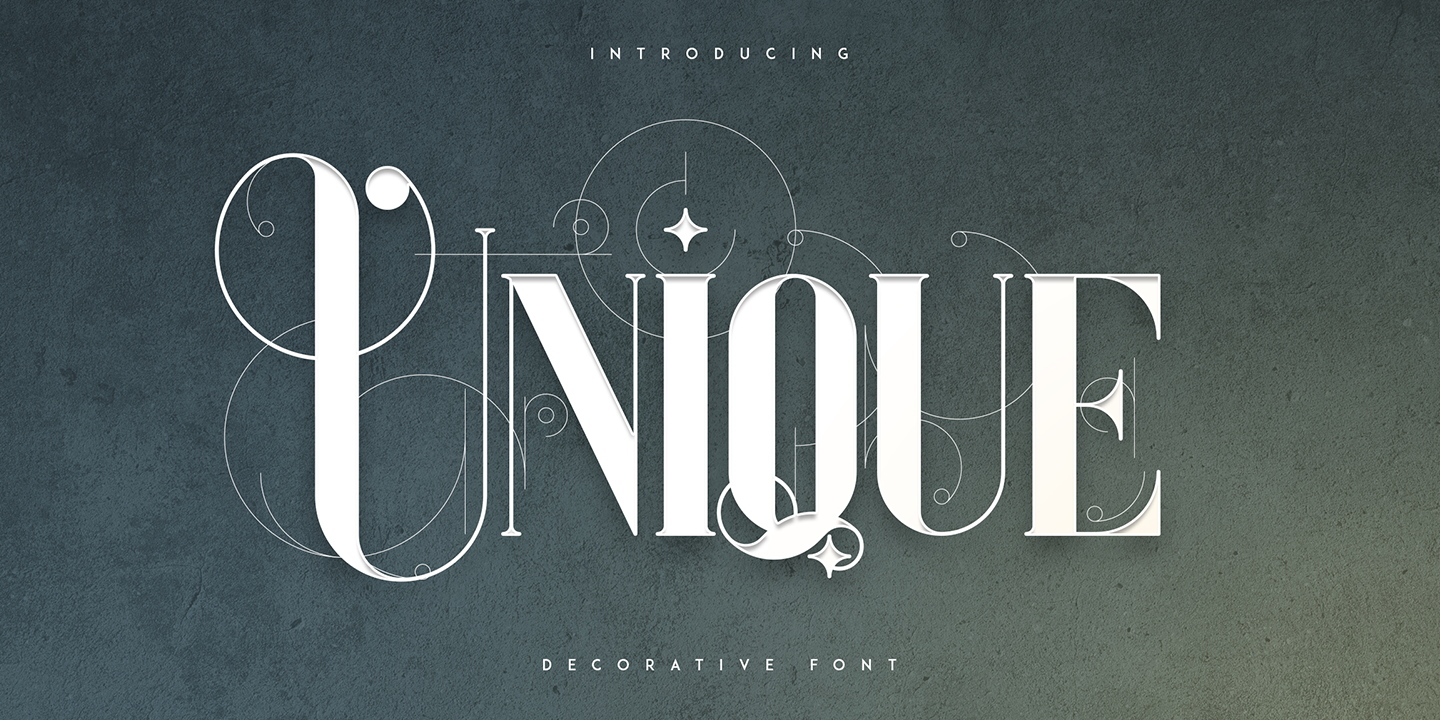
Unique VP Font is perfect for artistic branding projects, creative portfolio designs, independent music album covers, avant-garde poster campaigns, experimental web design, artistic event promotions, gallery exhibition materials, fashion brand identity, creative agency presentations, and innovative product packaging.
What makes Unique VP Font so exciting is its distinctive character that breaks conventional typography boundaries while maintaining functional readability. This typeface features unconventional letterforms with creative flourishes and artistic elements that make each character a work of art. The font's innovative design approach creates memorable visual impact, making it perfect for brands and projects that want to stand out from mainstream design trends and establish a truly unique identity.
Unique VP Font family includes Regular, Bold, and Display variants, each featuring the signature artistic characteristics that define this distinctive typeface. The family also includes decorative alternates and special character sets that enhance creative possibilities for experimental typography applications.
The Unique VP Font Free Download package offers designers access to truly innovative typography that challenges traditional design conventions. This remarkable typeface combines artistic expression with functional communication, creating a powerful tool for projects requiring distinctive visual personality. Whether you're developing creative brand identities, designing artistic publications, or creating experimental marketing materials, this font provides the unique character needed to capture attention and create lasting impressions.
Unique VP Font supports extensive character sets including standard Latin alphabets, numbers, punctuation marks, and special symbols. The font's carefully crafted spacing ensures optimal readability despite its artistic nature. Its OpenType features include stylistic alternates, decorative elements, and special ligatures that expand creative possibilities for sophisticated design applications.
Professional designers choose Unique VP Font for projects requiring exceptional visual impact and creative differentiation. The font excels in applications where standard typography feels too conventional, offering the perfect solution for brands seeking to communicate innovation, creativity, and artistic vision. Its distinctive appearance makes it ideal for creative industries, artistic ventures, and forward-thinking companies.